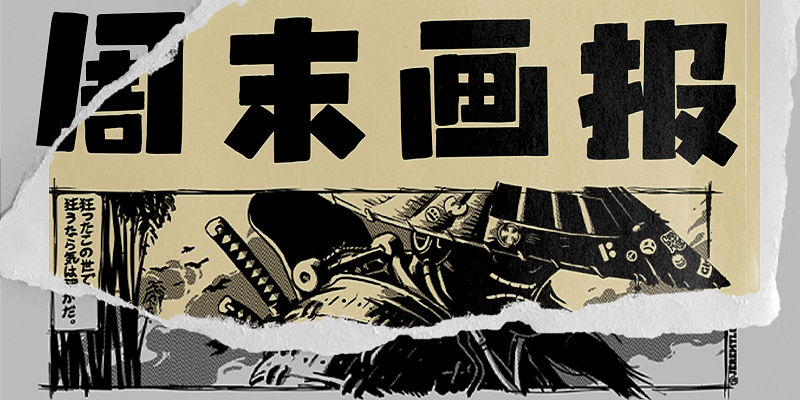
HelloFont ID Man Hei Font Free Download is a modern Chinese sans-serif (黑体/Hei Ti) typeface designed with clarity, balance, and multilingual flexibility in mind. "Man Hei" (满黑) roughly translates to “full black,” referencing the font’s clean, bold lines and even weight distribution. It’s ideal for editorial layouts, corporate design, mobile apps, signage, and branding projects where a neutral, professional tone is essential.
HelloFont ID Man Hei Font Free Download delivers strong legibility across both simplified Chinese and Latin scripts, making it a great fit for bilingual content, infographics, and responsive digital design. Its geometric structure and consistent stroke widths create a clean, polished appearance—perfect for design systems, presentations, and UI/UX components that require dependable visual clarity.
The typeface performs equally well at small sizes and in large-format headlines, thanks to its even rhythm and open letterforms.
Clean, modern, and highly versatile—HelloFont ID Man Hei Font is a smart, professional typeface that helps your message stand out with structure, confidence, and clarity.